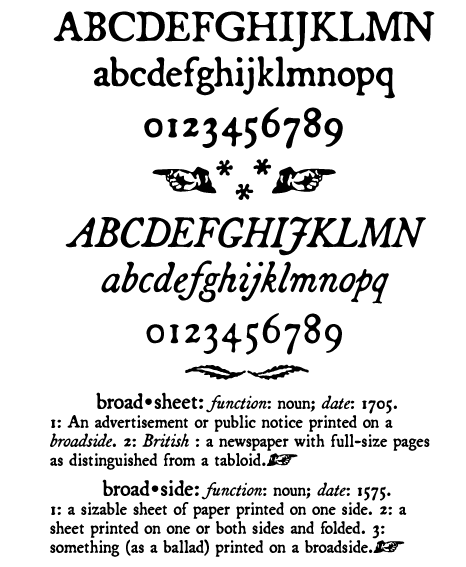
Broadsheet (Regular & Italic) (Three Islands Press)
Broadsheet(tm) simulates old newspaper text from the 1700s, chiefly from two specimens: an original copy of The New-England Weekly Journal, published in Boston on April 8, 1728; and a commemorative reprint of the Massachusetts Sun, published in Worcester, Mass., on May 3, 1775 (including an account of the Battle of Lexington). Broadsheet(tm) is somewhat dark and lumpy, in keeping with print jobs of the period. Works well in long text blocks or in display situations to suggest historical printed matter. Broadsheet(tm) has two styles, a roman and a true italic, each with a full complement of "long s" and other ligatures, along with a couple of printer's flourishes. Please see the enclosed key chart for details.FONTHAUS END USER LICENSE AGREEMENT